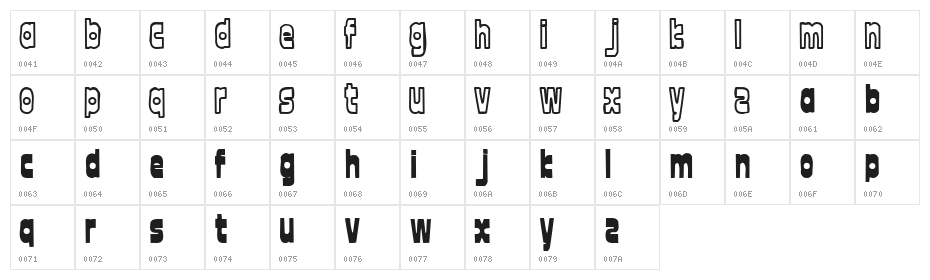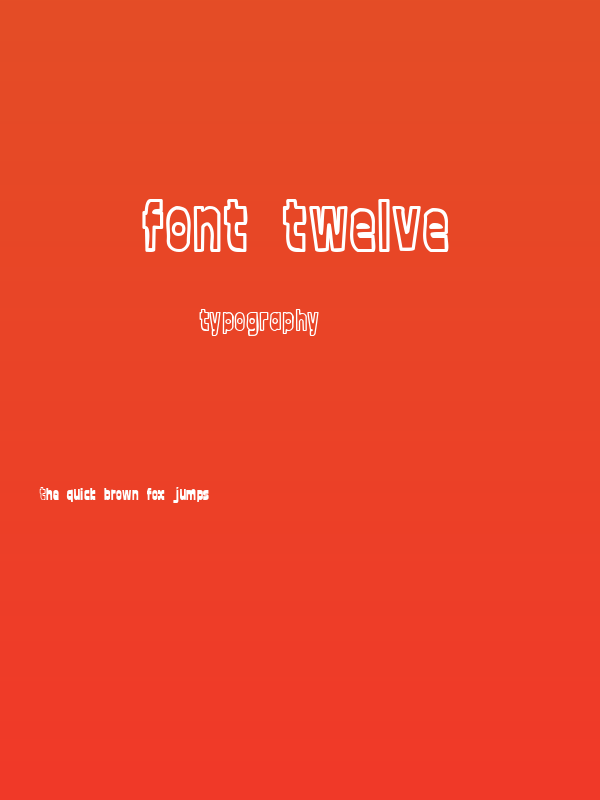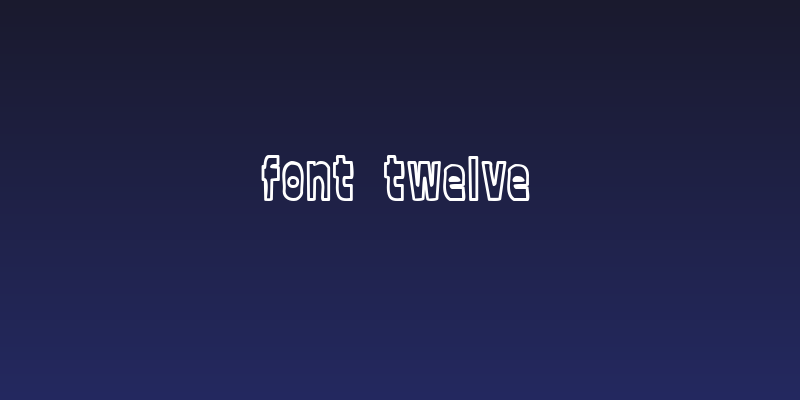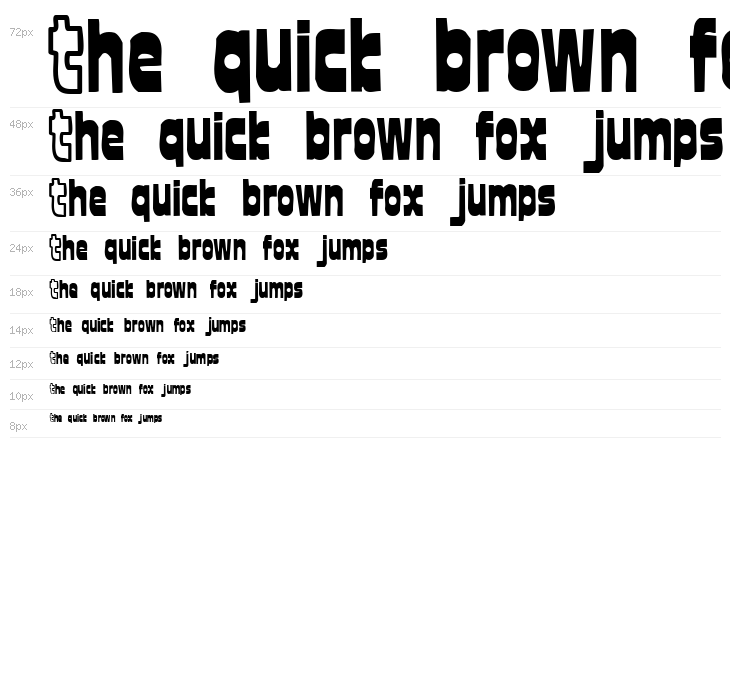
font twelve Font
font twelve Description
This font features a bold, geometric design with a strong presence. The uppercase and lowercase letters are characterized by thick strokes and a blocky appearance, giving it a modern and impactful look. The font's structure is consistent, with each character maintaining a uniform width and height, creating a harmonious and balanced aesthetic. The boldness of the font makes it highly legible and suitable for attention-grabbing designs. The absence of serifs and the uniform stroke width contribute to its clean and contemporary style.
| Proposed Projects | Ideal for headlines, posters, branding, and any design requiring a strong visual impact. |